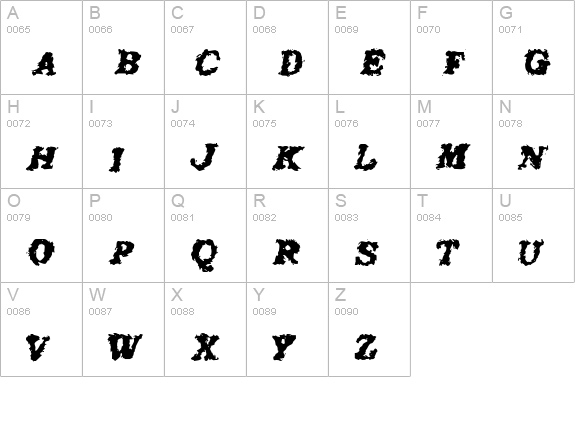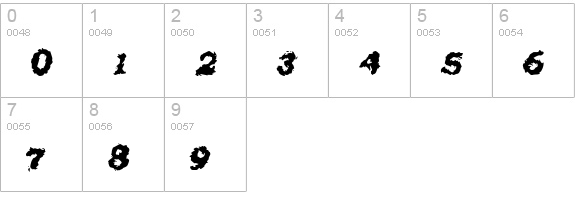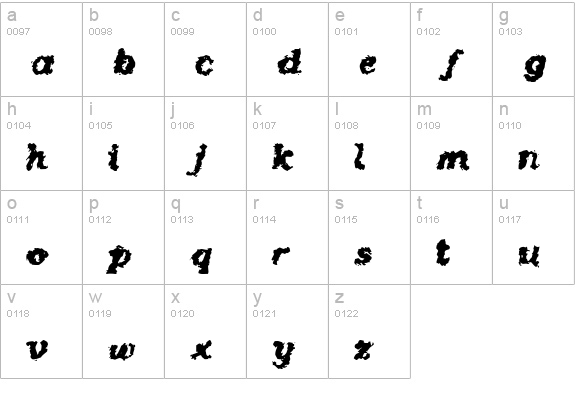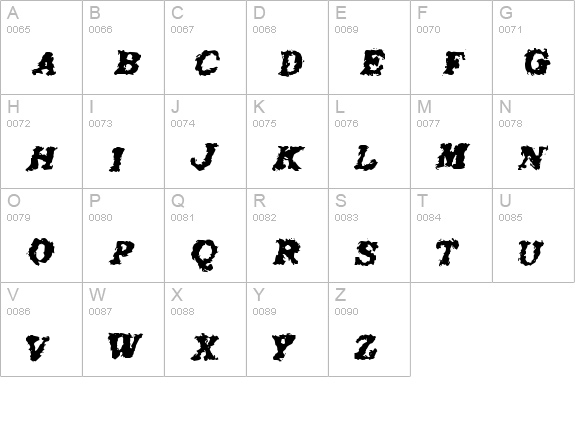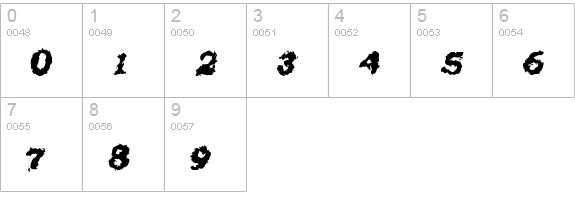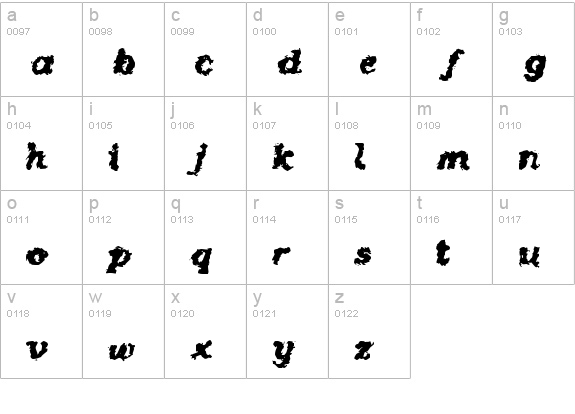
Crash Font Details
Introducing Crash font, a bold and dynamic typeface that will make your designs stand out from the crowd. With its edgy and modern look, Crash font is perfect for posters, headlines, logos, and more. The font features sharp edges and a unique style that exudes energy and excitement. And the best part? Crash font is completely free to download at FontsMarket.com. So you can unleash your creativity without any cost or restrictions. Don't miss out on this amazing opportunity to add a touch of excitement to your projects with Crash font. Download it now and let your designs crash through the ordinary!